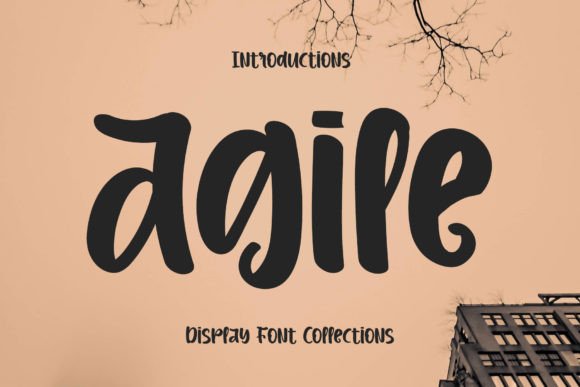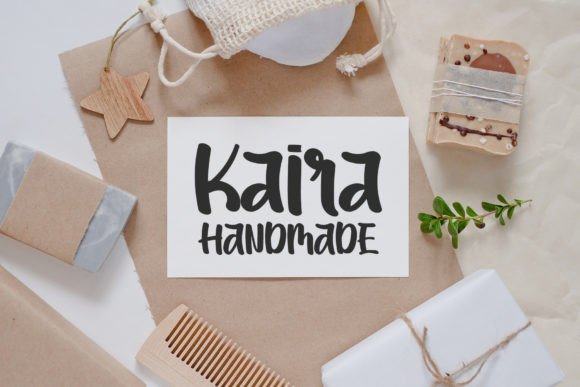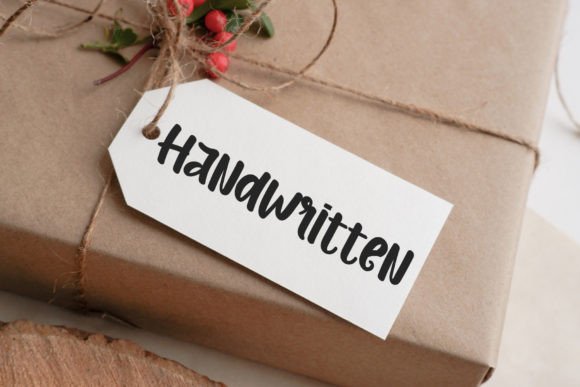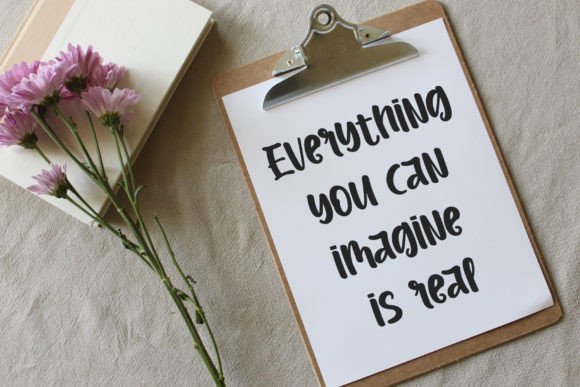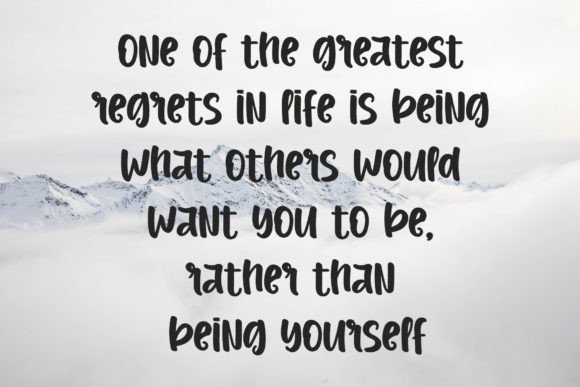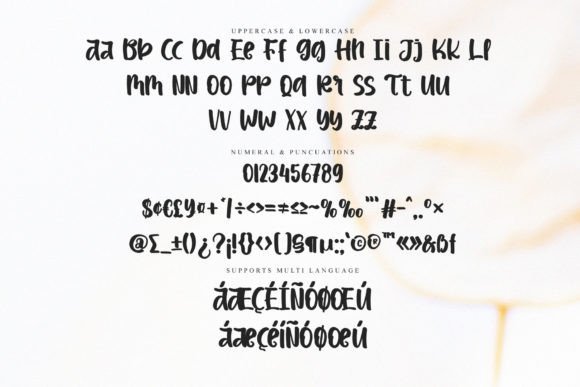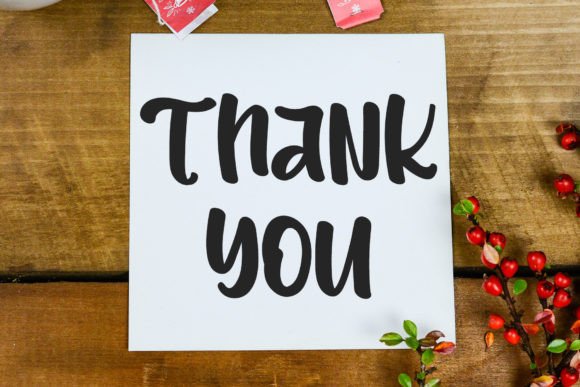
Agile Font
About Agile Font
“Agile” is more than just a font; it’s a stylish and fun script typeface designed to infuse a whimsical touch into your creative projects. Whether you’re working on logos, branding projects, labels, special events, or any other lovely endeavor, “Agile” is a font that brings a sense of style and playfulness.
The stylish and fun qualities of “Agile” are immediately apparent in its script design. Each letter is crafted with flair and personality, contributing to an overall aesthetic that is both chic and playful. This makes it an ideal choice for projects that require a touch of whimsy and a stylish vibe.
The versatility of “Agile” becomes evident in its adaptability to various design contexts. Whether used in branding to create a memorable logo, adding a whimsical touch to labels, or making special events more visually engaging, this font confidently fits into a diverse range of creative projects.
Imagine it in digital graphics or social media posts, where “Agile” can bring a playful and stylish element to your visual content. Picture it in branding, creating a distinctive and whimsical visual identity. “Agile” becomes a font that not only looks stylish but also adds a fun and lively energy to your designs.
In summary, “Agile” is not just a font; it’s a design asset that brings a stylish and fun touch to your creative projects. Let it be the choice for adding a whimsical script vibe to your logos, labels, and more. With “Agile,” every project becomes an opportunity to showcase the beauty of playful and stylish script typography.